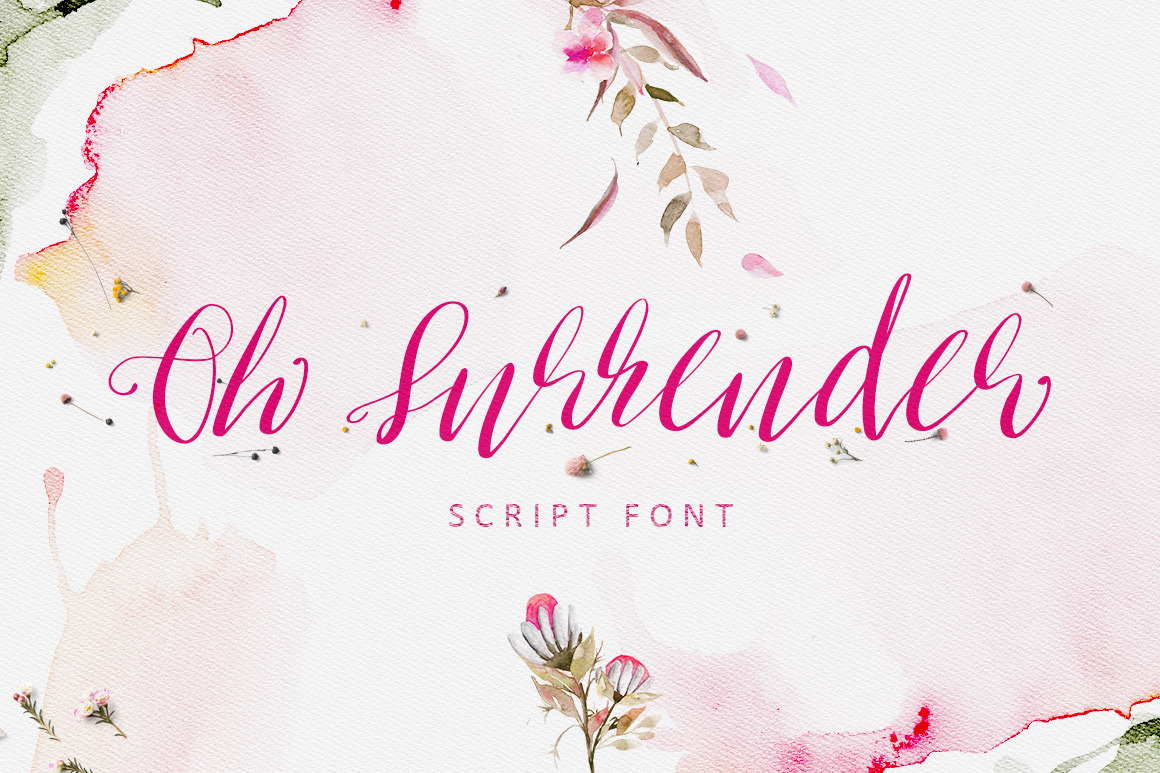
Oh Surrender Script Font
Introducing Oh Surrender script font.
This is a beautiful hand written script font with alternates and double ligatures. Perfect for weddings, logos, invites, quotes, printables, and so much more.
International characters included.